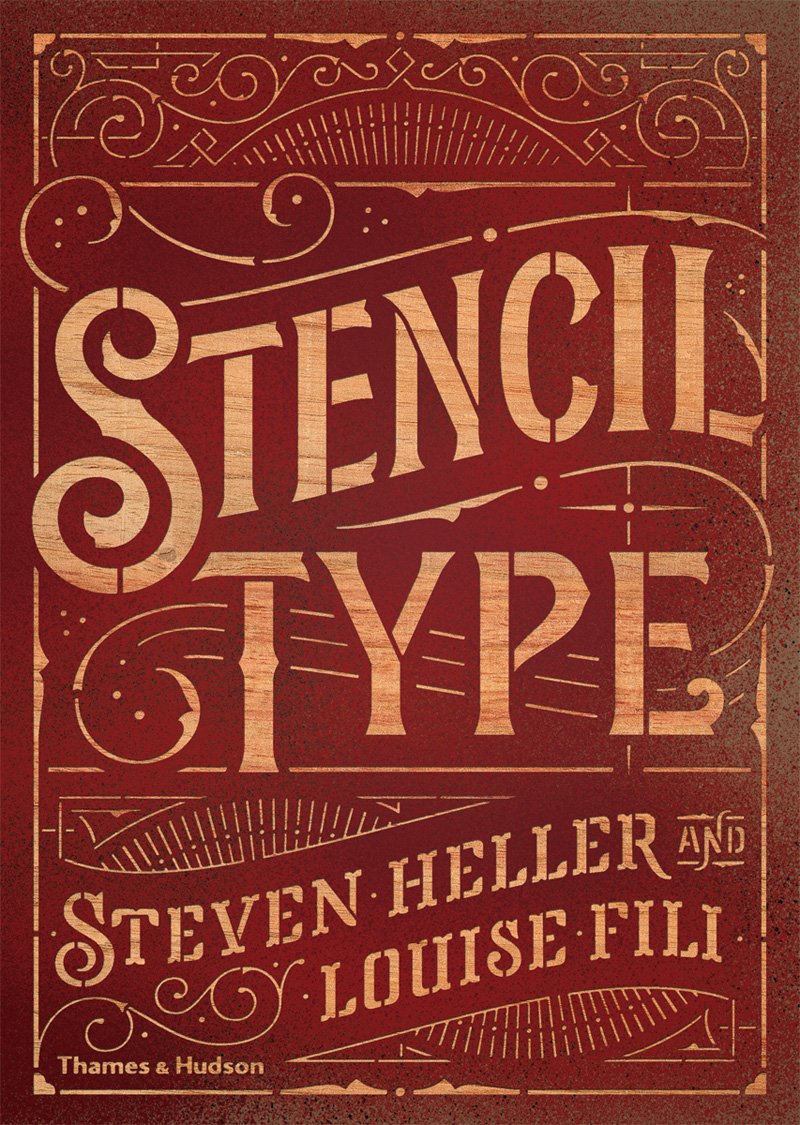
Stencil Type
Designers often look to the past to inform their work. In Stencil Type, design gurus Steven Heller and Louise Fili explore the variety and influence of the world’s most ubiquitous typographic style, which dates to prehistoric times and has been used on a range of surfaces from street signs, buildings, and bridges to packaging and posters.
This expansive sourcebook presents hundreds of international examples of stencil typography from the late nineteenth through the twentieth centuries. The wonderful array of stencil types highlights surprising instances of artistry and ingenuity from a broad range of locations and objects—from military, traffic, and transportation to home decoration, mass communication, and street art. And the survey is global, drawing on design from America, France, Italy, Spain, Germany, the Netherlands, Great Britain, and Eastern Europe.
An introduction surveys the history and applications of stencil typography, and samples of stencil type are presented in order of their geographic origin.